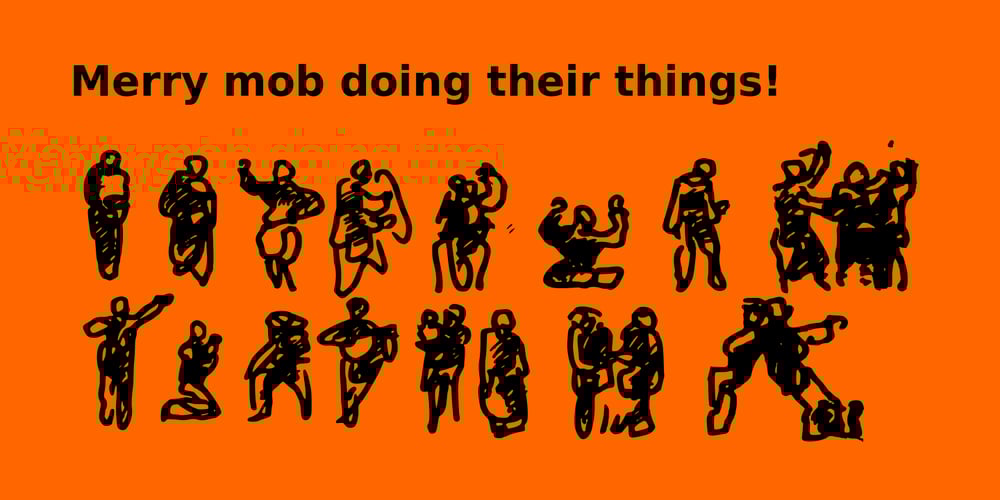
Merry Mob Font Family was designed by Joan M. Mas and published by Typephases. Merry Mob contains 1 styles and family package options. A gestual drawing of little people that will produce an instant crowd, gang or any combination of folks you need.